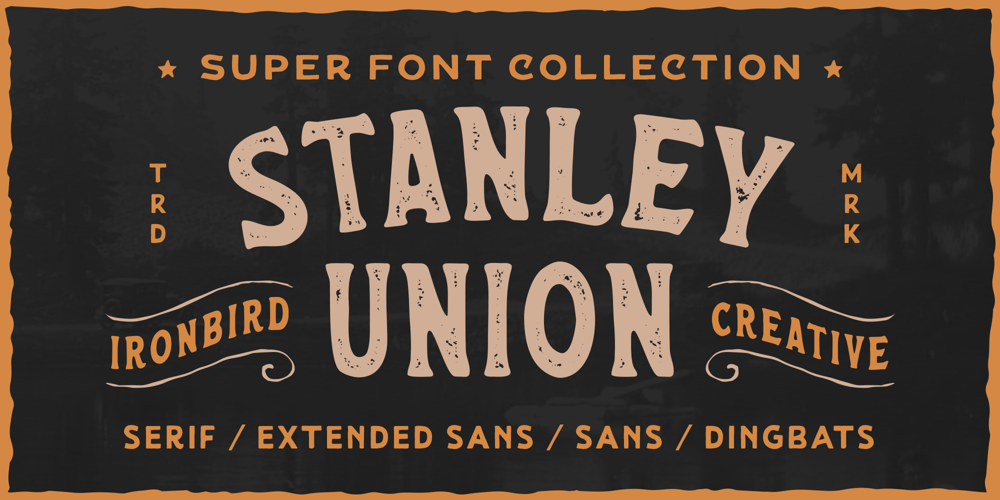
Stanley Union Font Family was designed by Septianto Nugroho and published by Ironbird Creative. Stanley Union contains 7 styles and family package options. Stanley Union is a font bundle consisting of serif, sans serif, extended sans and dingbats which is organic and hand-drawn and comes with regular and stamp styles. This typefaces is perfect for people looking for vintage aesthetic and organic feel.What Will You Get : Stanley Union Serif Regular & Stamp Stanley Union Sans Regular & Stamp Stanley Union Extended Sans Regular & Stamp Stanley Union Dingbats We hope you enjoy the font, please feel free to comment if you have any thoughts or feedback. Thanks for purchasing and have fun!